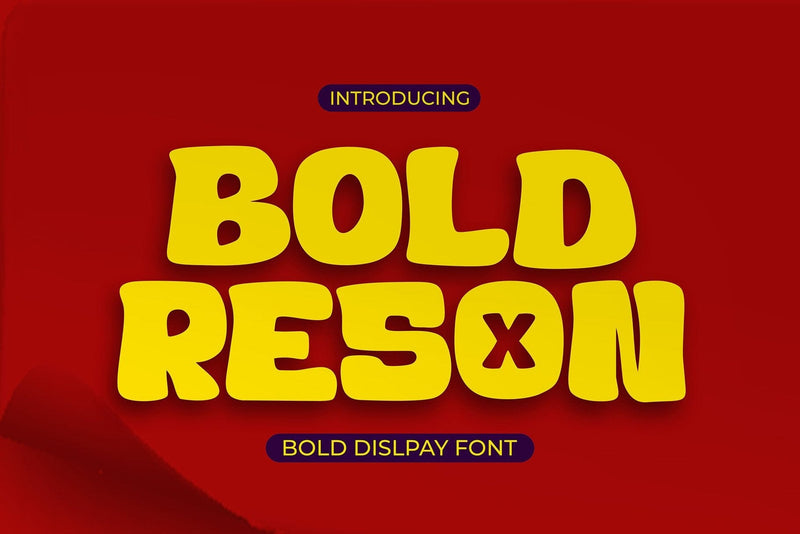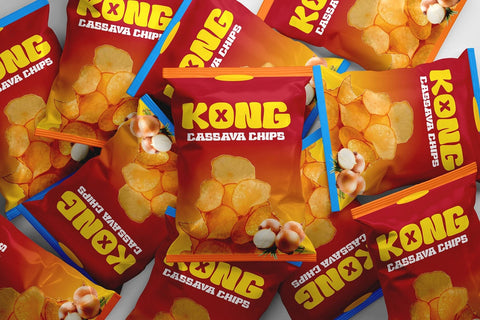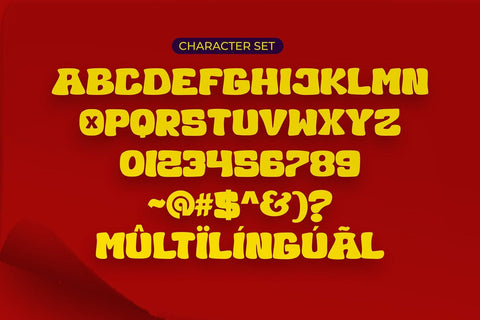
Bold Reson - Bold Display Font
"Bold Reson" is a charming and playful display font with a bold and thick appearance. Its cute and adorable design adds a touch of cheerfulness to any project. With chunky letters and a lively vibe, this font exudes a sense of vibrancy and energy, making it perfect for eye-catching headlines, cheerful branding, and playful designs.